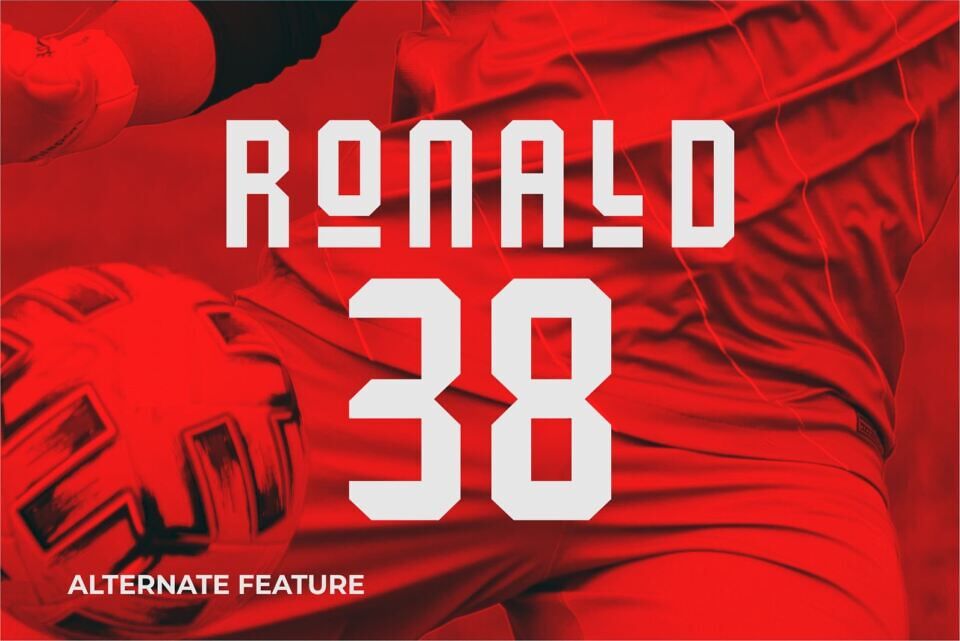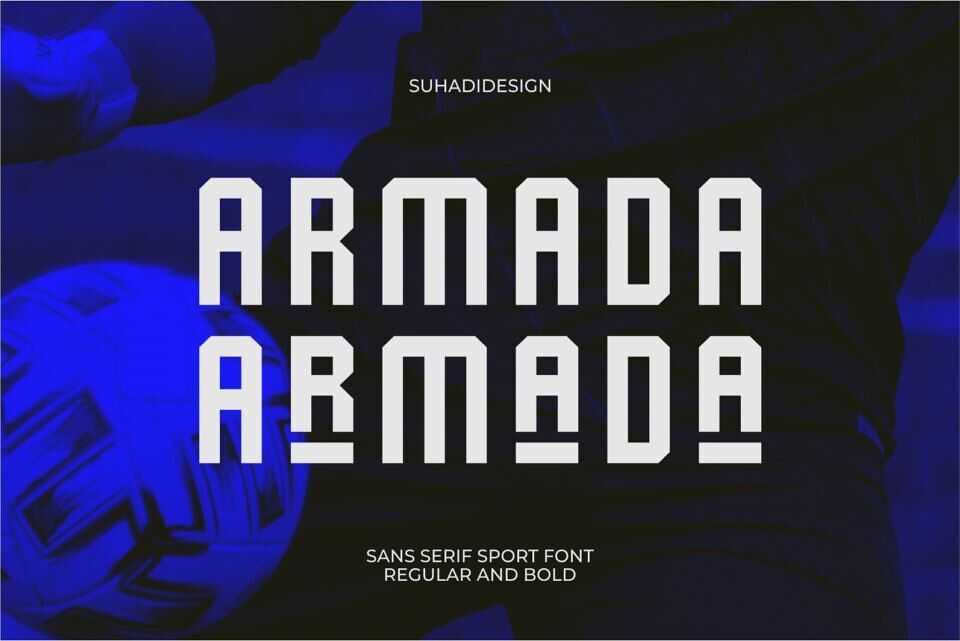
Armada Font
Armada font is a sans serif font mostly created by sportswear or for logos and other designs. with a modern stylish style, it has become a market favorite. We keep this font looking elegant, classy, ​​stylish.
Armada Font is the right choice for jerseys, sportswear, logos, football, basketball, baseball, badminton, packaging, labels, magazines, designs, books, publications, brand names, business cards, social media, classy designs, newspapers, branding and other projects.